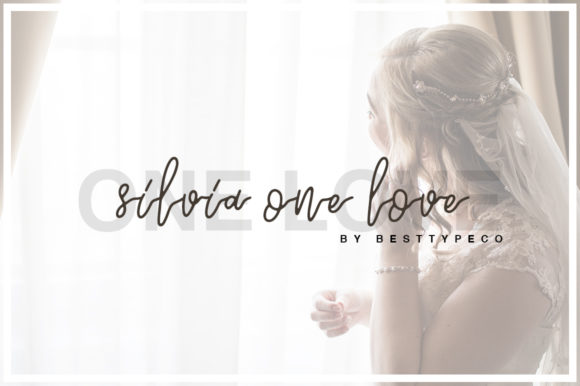
Envision your designs blooming with a touch of elegance, a whisper of whimsy, and a cascade of love! Silvia One Love, a breathtaking script font, is here to ignite your creativity and transform your visions into enchanting masterpieces. With its delicate curves, playful swashes, and a touch of vintage charm, this font will make every letter sing with emotion. Whether you're crafting heartfelt invitations, designing captivating social media posts, or creating logos that leave a lasting impression, Silvia One Love will bring a unique and captivating touch to your projects. Let the words flow effortlessly from your fingertips, guided by the graceful lines of Silvia One Love, and watch your designs blossom with love and adoration!